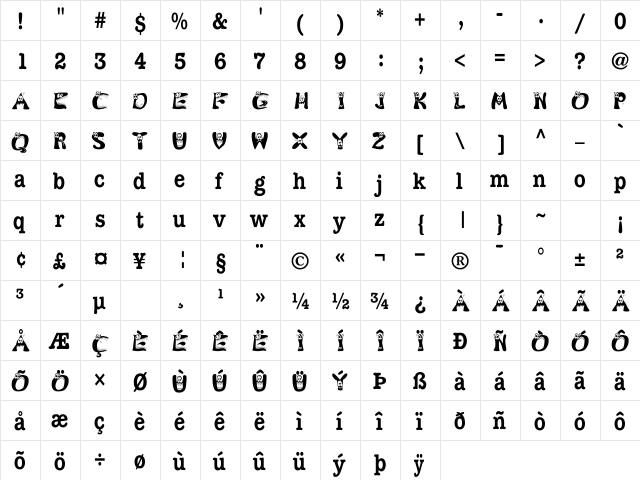
KAMonster Regular
Design Context for KAMonster Typeface
KAMonster is a composed and adaptable typeface that performs quietly and consistently across a wide range of design contexts.